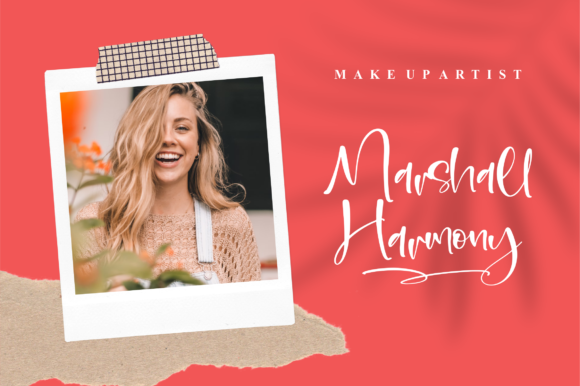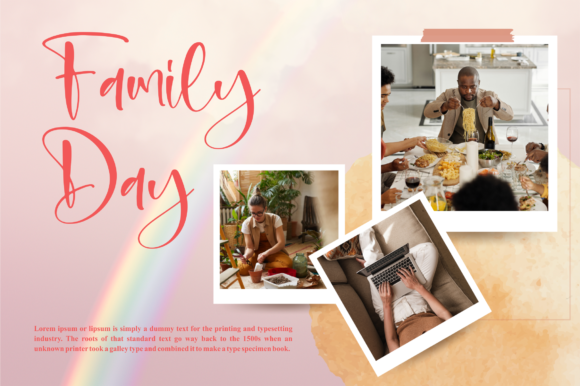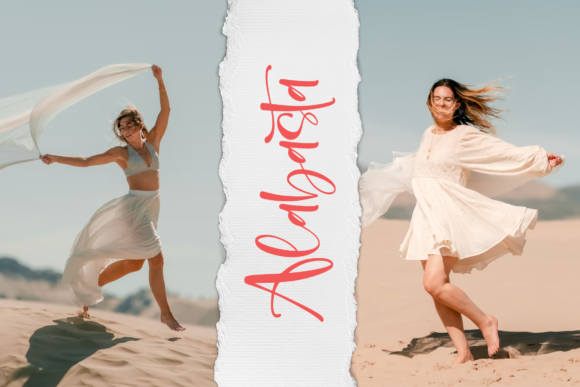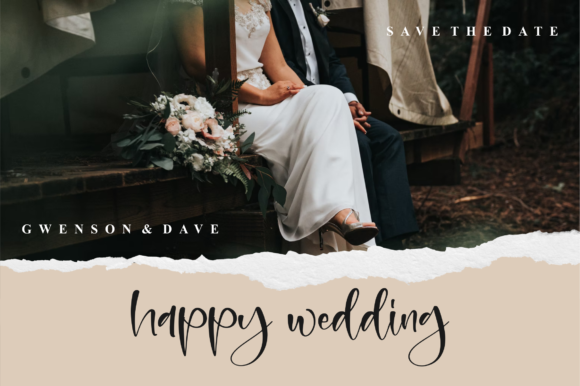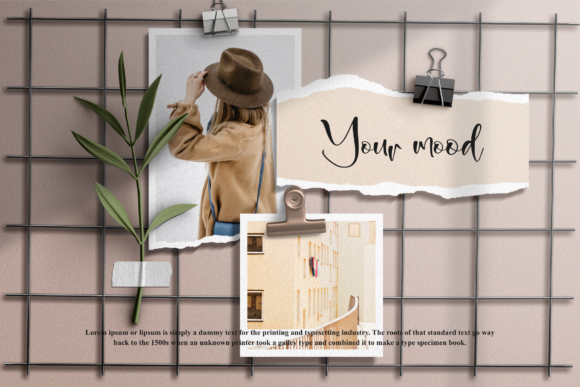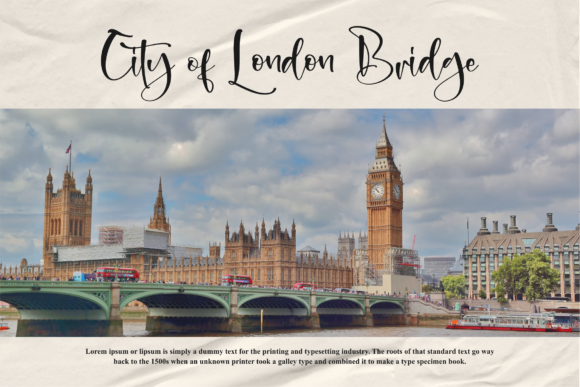
The Quest for the Perfect Script Font: Discovering Adelle Bright
I’ll never forget the time I was working on a branding project for a trendy boutique, and I just couldn’t find the right font to capture the essence of the brand. The client wanted something chic, elegant, and Instagram-worthy. I scoured the internet, tried out countless fonts, but nothing seemed quite right. That was until I stumbled upon Adelle Bright, a stunning script font that instantly elevated my design game.
First Impressions: What I Love About Adelle Bright
Adelle Bright is a trendy and chic script font that’s perfect for any project that needs a touch of elegance. Here are some things I love about it:
• ✨ Beautiful, flowing script that’s perfect for logos, branding projects, labels, and more
• ✅ PUA encoded, making it easy to access all glyphs and swashes
• 💫 Highly versatile and suitable for a wide range of projects, from photography to special events
• 🎨 Great for creating stunning watermarks, social media graphics, and more
The Honest Review: A Few Quirks to Consider
While Adelle Bright is an amazing font, there are a few things to keep in mind:
• 🤔 Some users may find the font a bit too ornate or over-the-top for certain projects
• ⚠️ As with any script font, it may not be the best choice for body text or long blocks of text
The Story Behind Adelle Bright
While I couldn’t find any information on the actual designer of Adelle Bright, I like to imagine that it was created by a talented typographer who wanted to craft a font that would make designers swoon. Perhaps they were inspired by the flowing scripts of the past, but with a modern twist. Whatever the story, Adelle Bright is a true gem in the world of script fonts.
What is Adelle Bright? Adelle Bright is a trendy and chic script font that’s perfect for any project that needs a touch of elegance.
Is Adelle Bright easy to use? Yes! Adelle Bright is PUA encoded, making it easy to access all glyphs and swashes.
What kind of projects is Adelle Bright best suited for? Adelle Bright is perfect for logos, branding projects, labels, photography, watermarks, special events, and more.